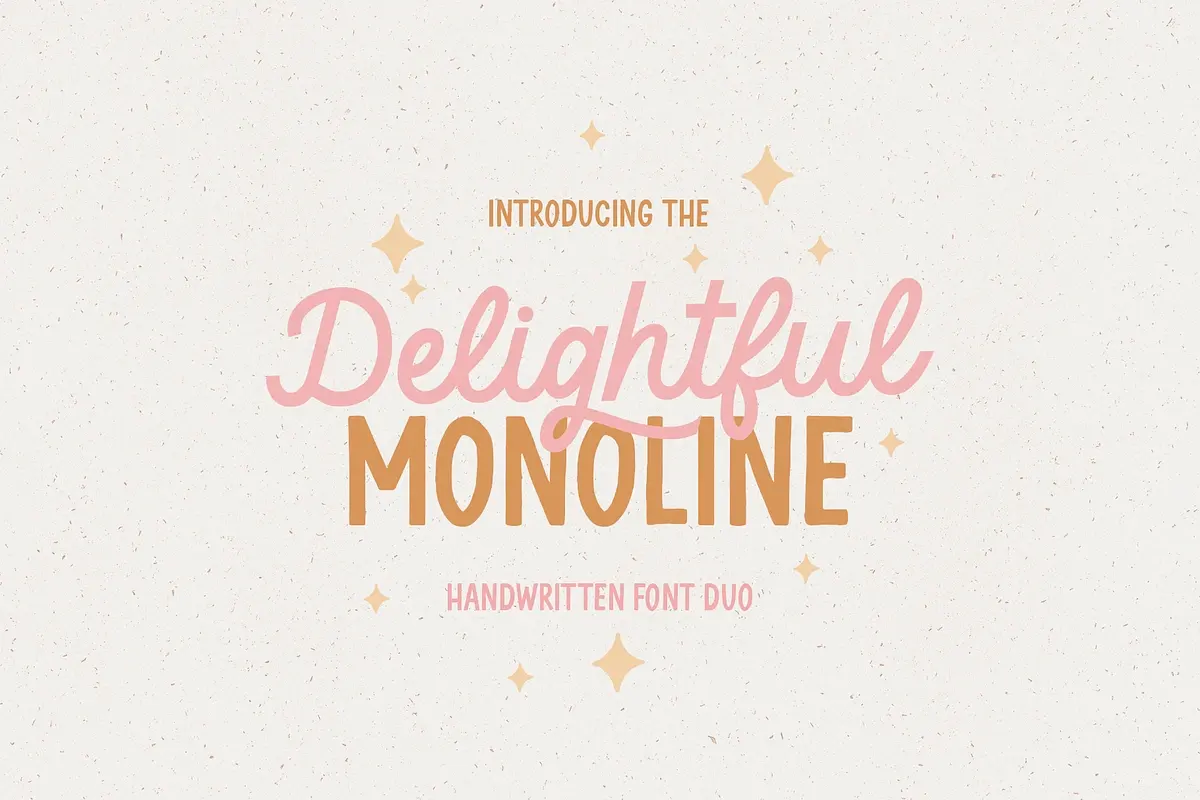
Delightful Monoline Font Duo Free Download
Delightful Monoline Font Duo Free Download is a sweet and stylish typeface pair that combines a flowing script with a clean sans serif for the perfect modern harmony. Please note: you must purchase this font for commercial use, but you can test it through a free download. Designed with simplicity and elegance in mind, this duo is ideal for logos, wedding invitations, branding, quotes, packaging, and lifestyle blogs.
The monoline script adds a handcrafted, personal touch, while the sans serif companion keeps your layout clean and contemporary. Whether you're building a cohesive brand identity or crafting standout social media posts, Delightful Monoline Font Duo Free Download delivers versatility and charm. Fully compatible with Adobe Illustrator, Photoshop, Canva, and other major design tools, it fits beautifully into any creative workflow. Download it today for personal use and elevate your designs with the effortless grace of Delightful.